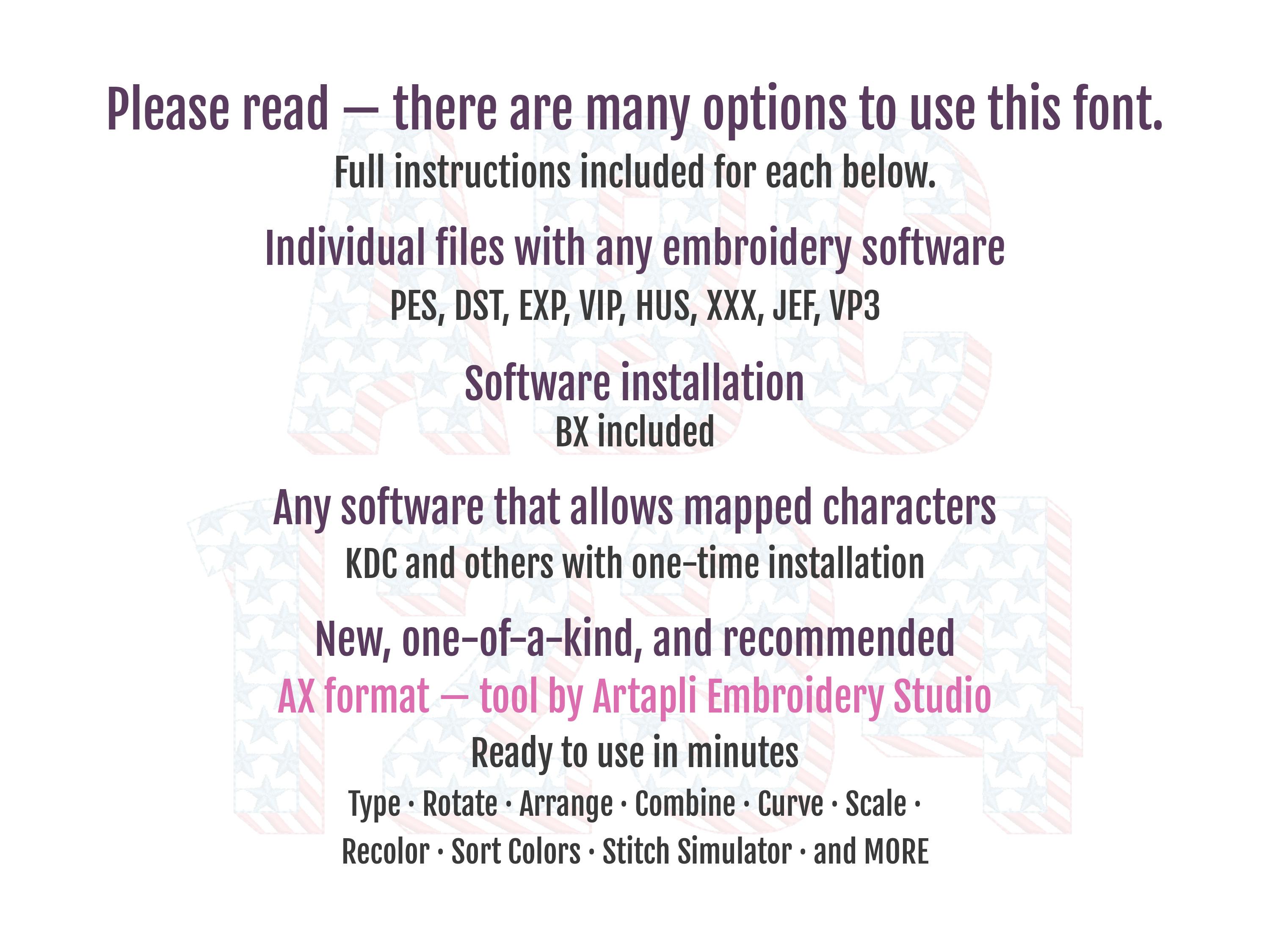
Shadow Patriotic font machine embroidery designs sizes from 2 up to 3.8in Stars and Stripes 4th July monogram block font letters numbers, BX
Whole alphabet A-Z uppercase letters, and numbers 0-9.